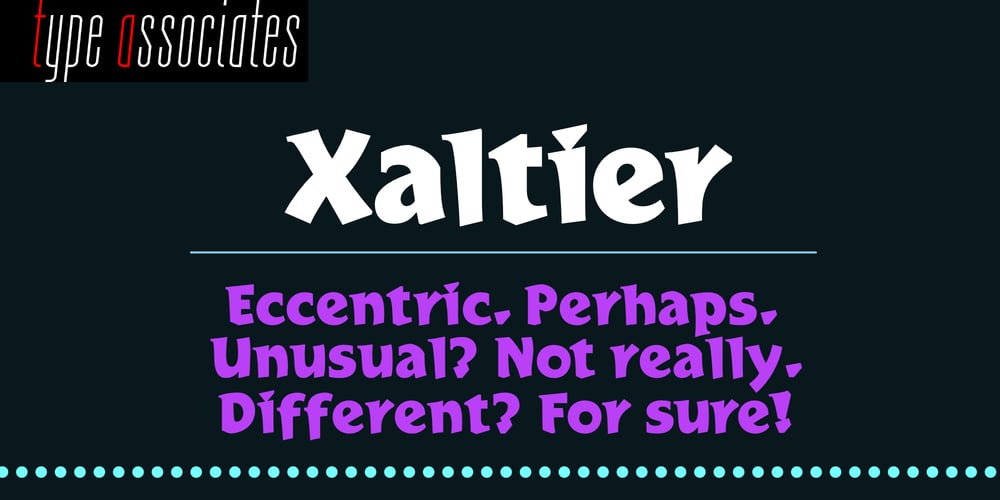
Xaltier
Xaltier font
Xaltier Font Family was designed by Russell Bean and published by Type Associates. Xaltier contains 1 styles and family package options. Xaltier was inspired by nothing more than a desire to draw a heavy serif headline style with carefully considered counterspaces and contrast distribution. The angular terminals and absence of baseline serifs makes for an interesting design whilst maintaining maximum readability.